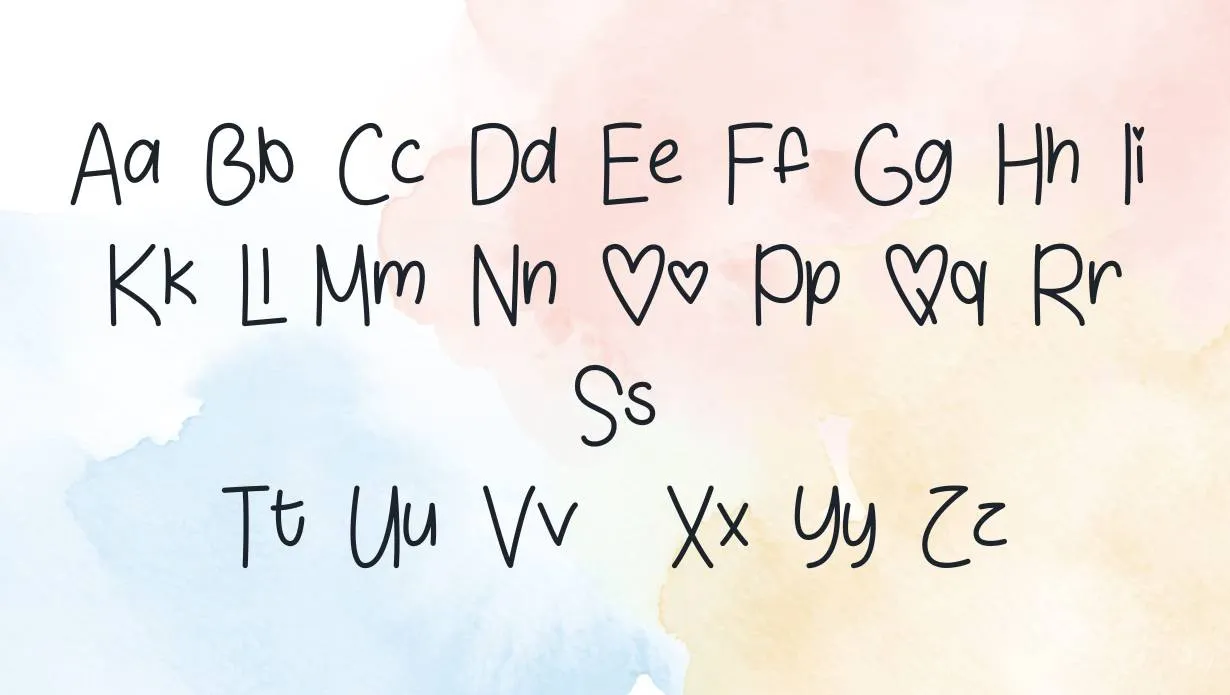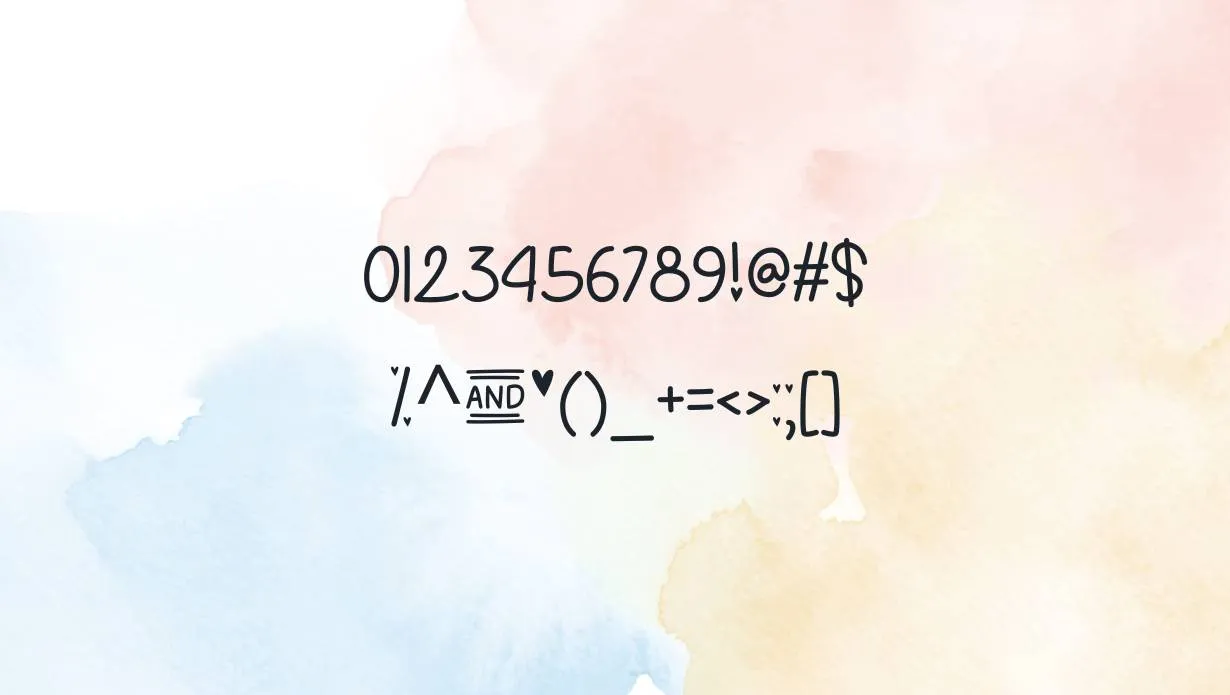
Love and Sunshine Font Free Download
Love and Sunshine Font is a splendid typeface that belongs to the script font family. This marvelous typeface is created by the love and hard work of Misti Hammers for Misti’s Fonts. It was published in 2017.
This typeface is comprised of 142 characters which include uppercase alphabets, numerals, punctuations, lowercase alphabets, and special characters.
View of Love and Sunshine Font